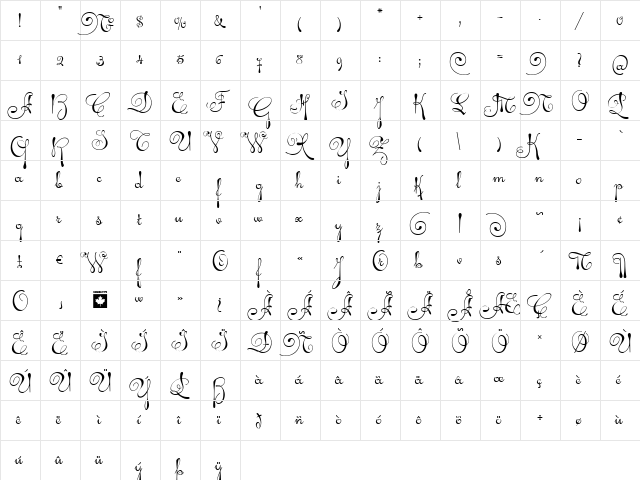
Ariadna script Regular
| Foundry | Gophamnn A.L. |
| Designer | Gophmann A.L. |
Design Context for Ariadna script Typeface
Ariadna script brings a calligraphic fluidity to the page — its connecting strokes and expressive curves give it an unmistakably human quality.
Font Pairing: Combine Ariadna script with a simple geometric sans for maximum contrast — the tension between flowing curves and clean structure is a classic typographic pairing.
Pro Tip: Pair Ariadna script with a clean sans-serif for supporting text. The contrast between fluid script and geometric structure creates an elegant typographic hierarchy.